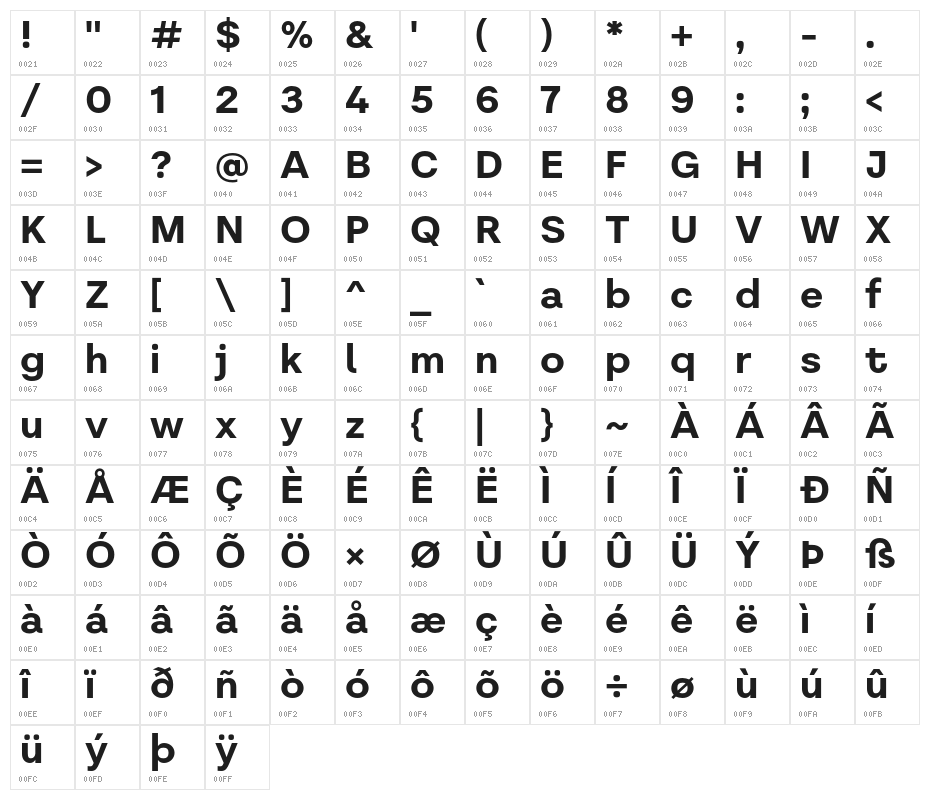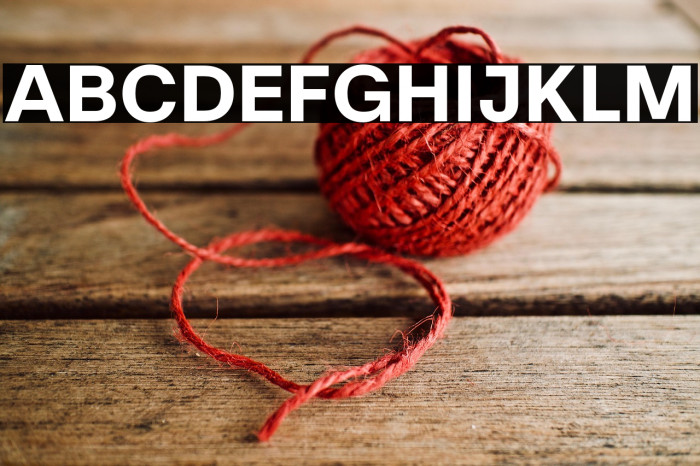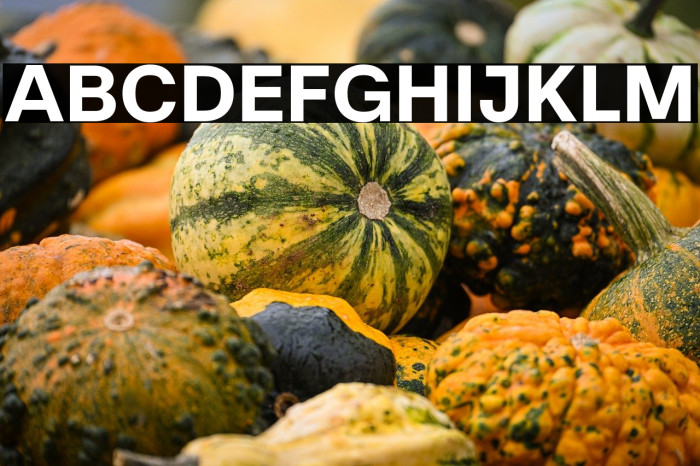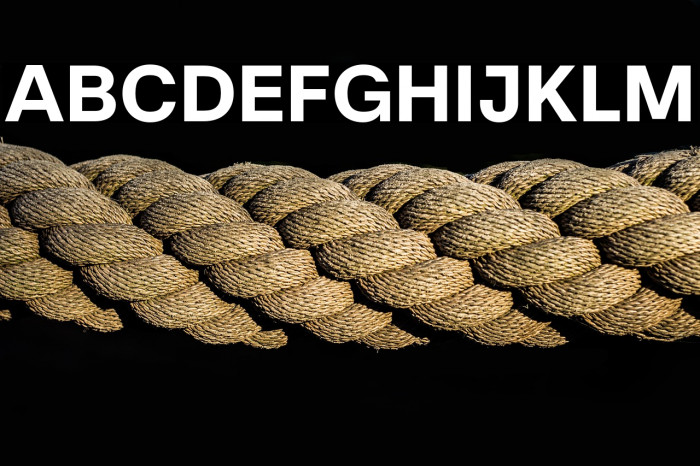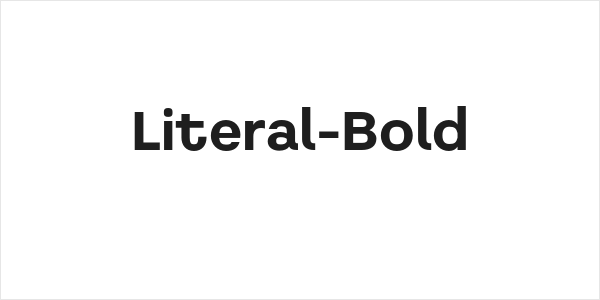
Literal-Bold Font
Literal-Bold Description
This typeface features a bold, sans-serif style with clean, straight lines and uniform stroke widths. The characters are well-defined and evenly spaced, providing excellent readability. The uppercase letters are strong and commanding, while the lowercase letters maintain a consistent height and width, contributing to a balanced appearance. The numerals are clear and distinct, matching the overall boldness of the alphabet. Special characters are included, maintaining the same weight and style, ensuring versatility in various contexts. This font is ideal for making a strong visual impact.